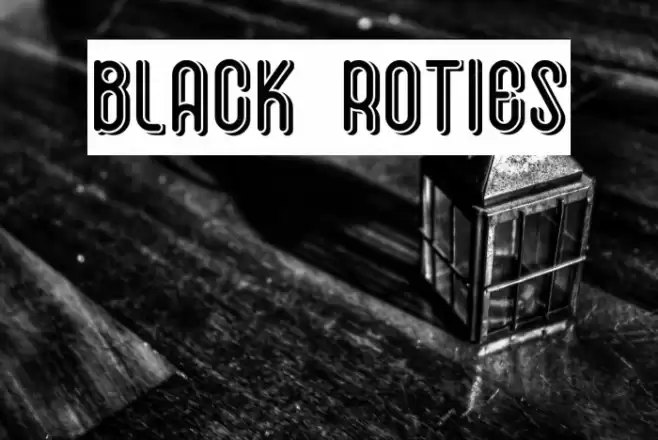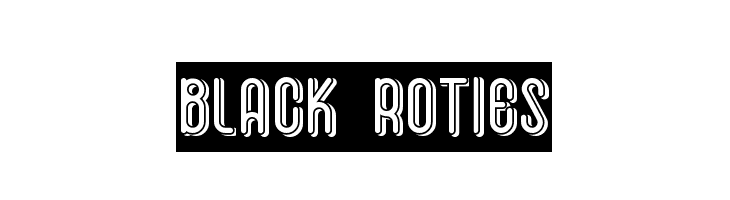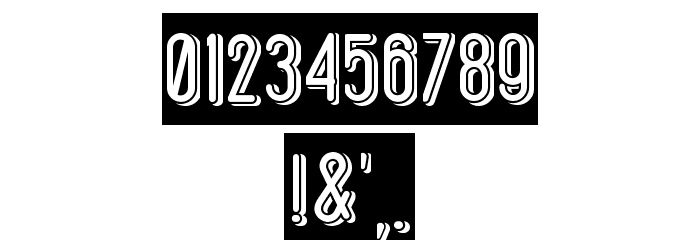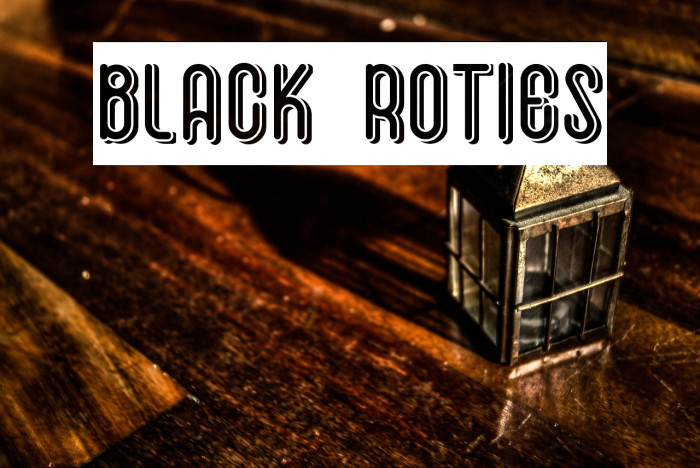
Black Roties Font
Black Roties Description
This font features a bold and decorative style with a unique outline effect that gives each character a three-dimensional appearance. The uppercase and lowercase letters maintain a consistent design, emphasizing strong vertical lines and rounded edges. The numerals and special characters follow the same stylistic approach, ensuring uniformity across all glyphs. The font's playful yet structured design makes it suitable for eye-catching displays and creative projects.
A bold, decorative font with a three-dimensional outline effect from Uncategorized fonts.